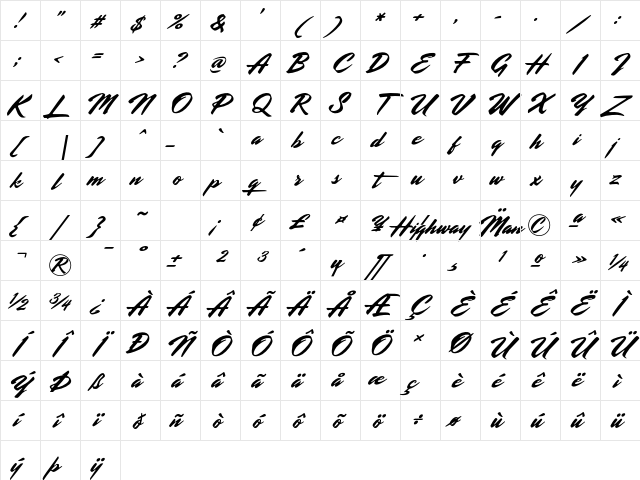
Highway Man Clean PERSONAL USE Regular Free Font
Highway Man Clean PERSONAL USE Regular
Foundry: Mans Greback AB
Designer: Mans Greback
Design Context for Highway Man Clean PERSONAL USE
Highway Man Clean PERSONAL USE is a composed and adaptable typeface that performs quietly and consistently across a wide range of design contexts.